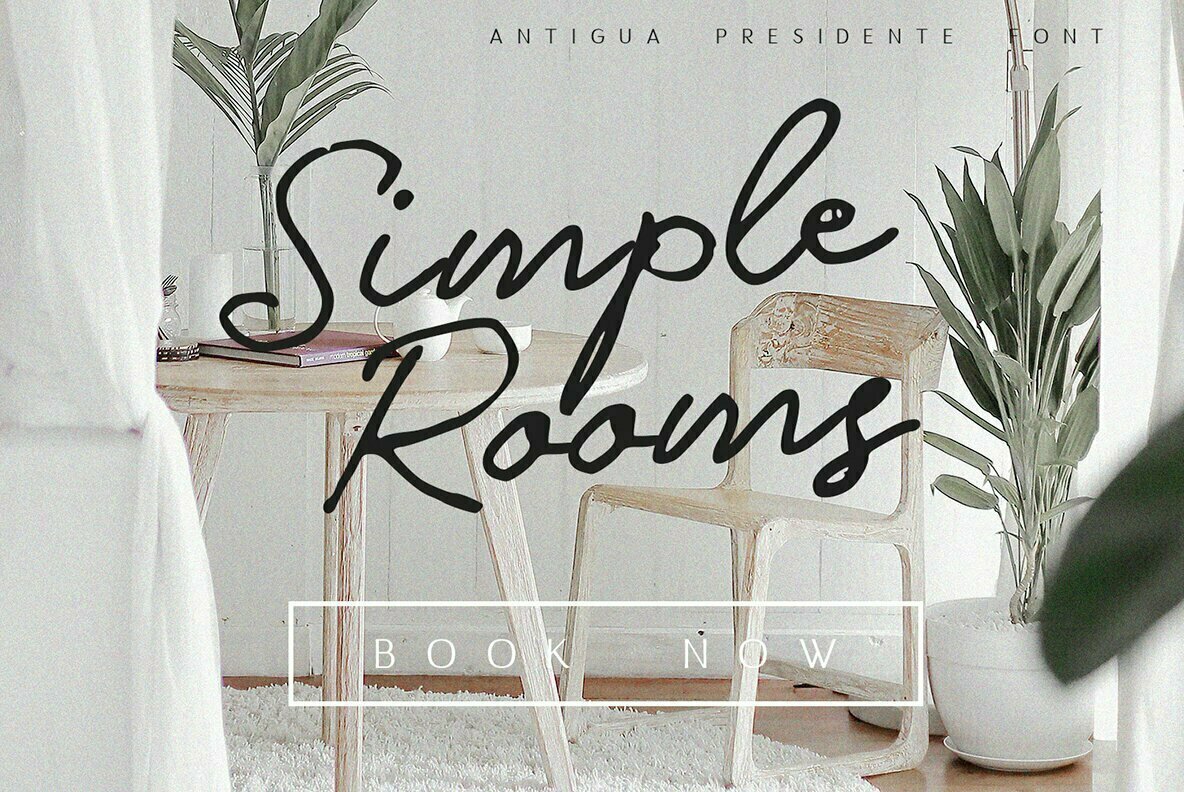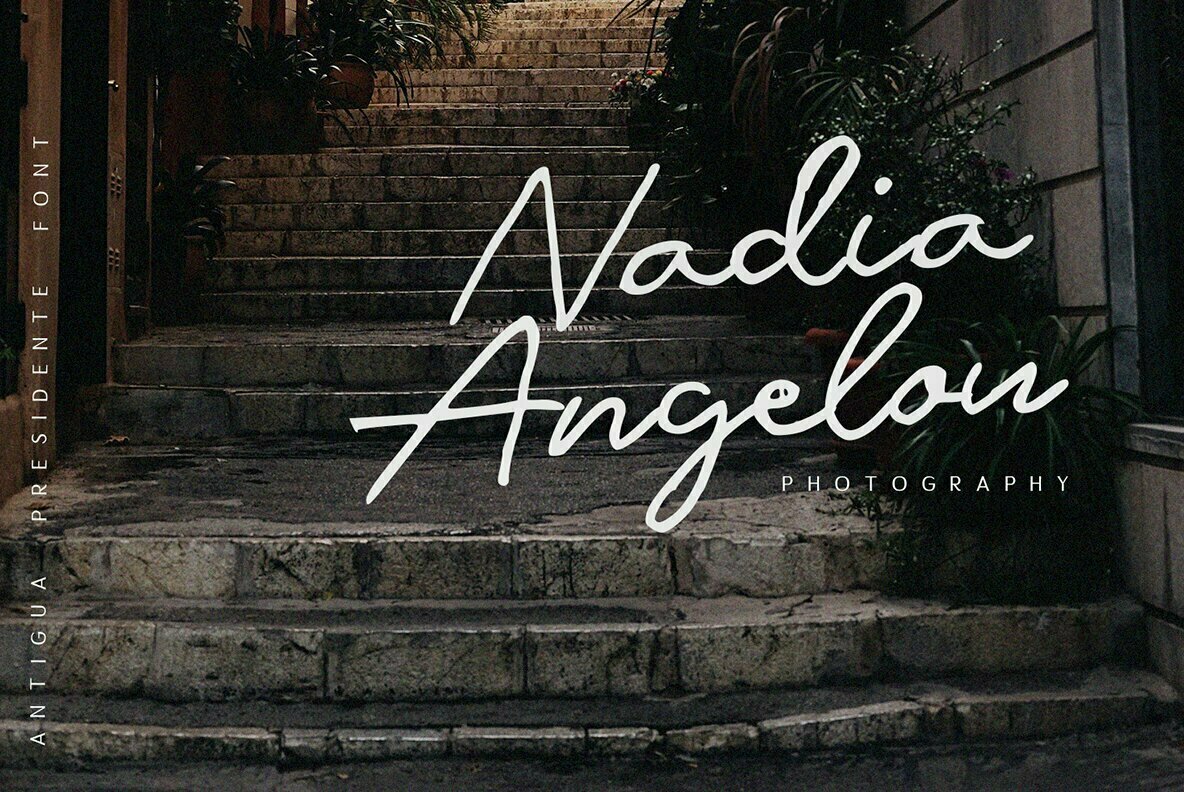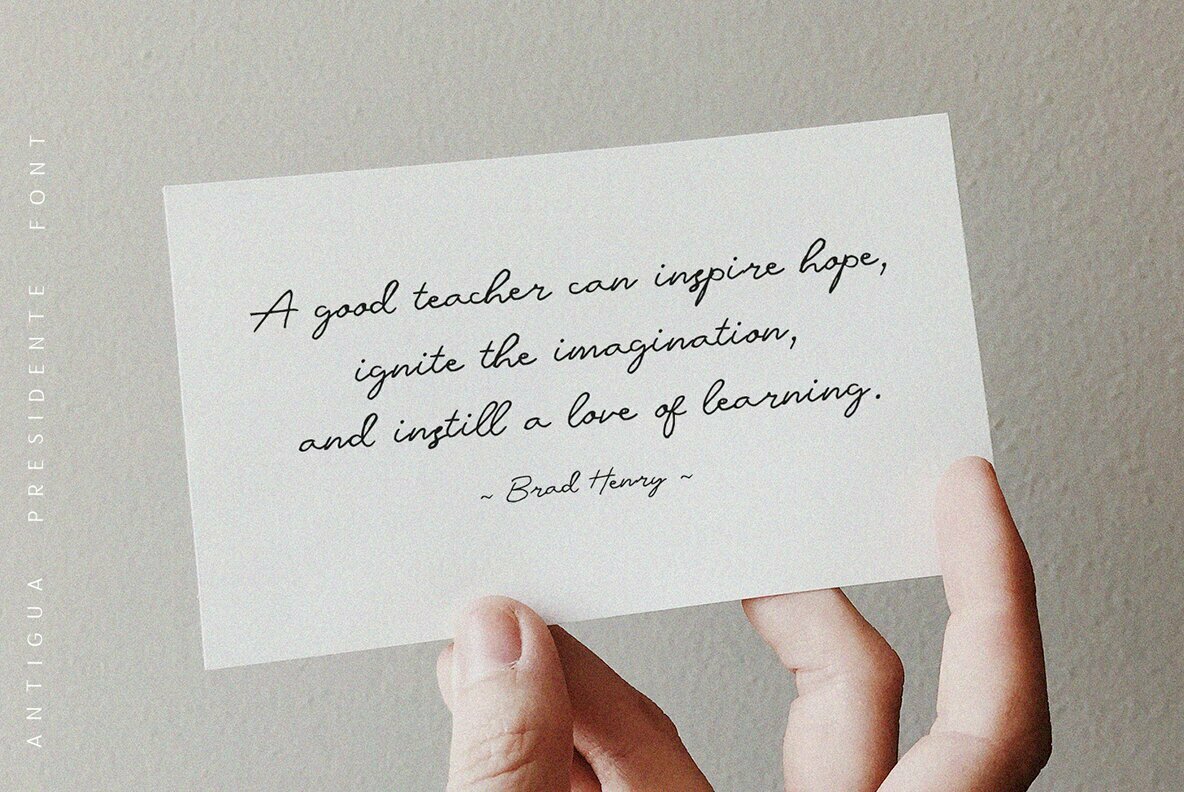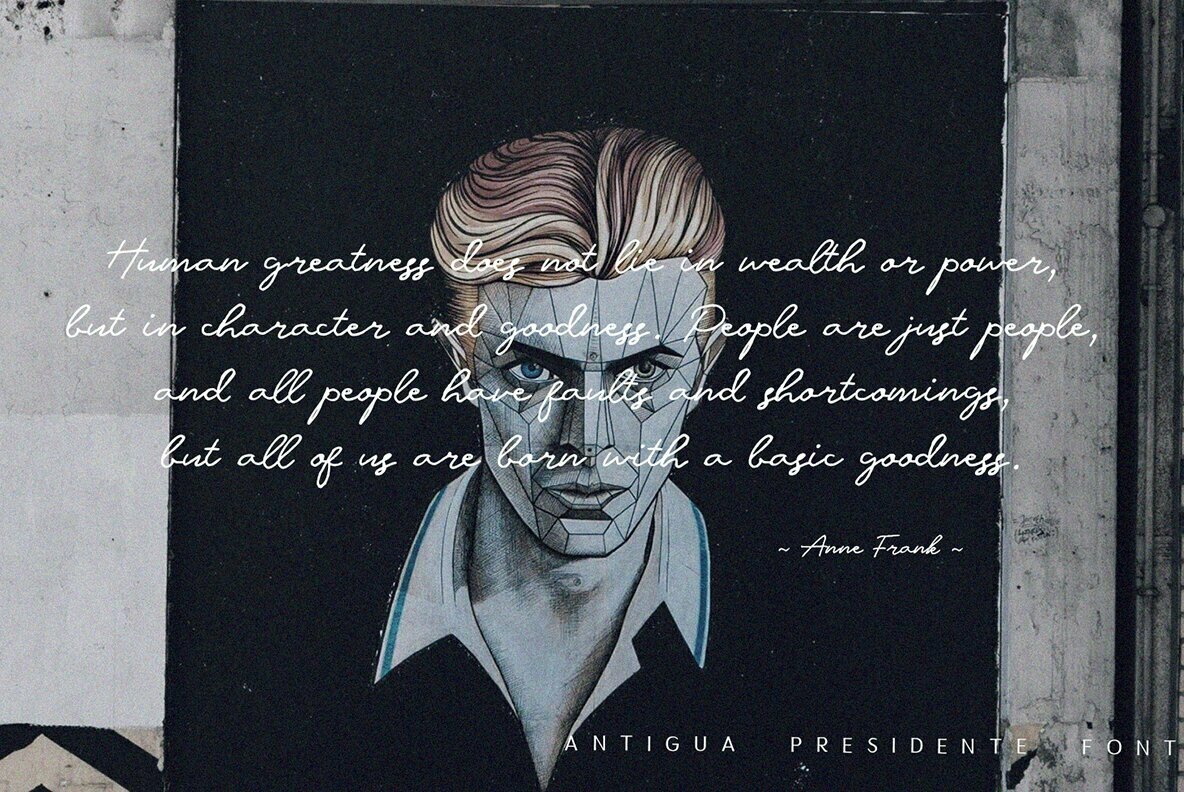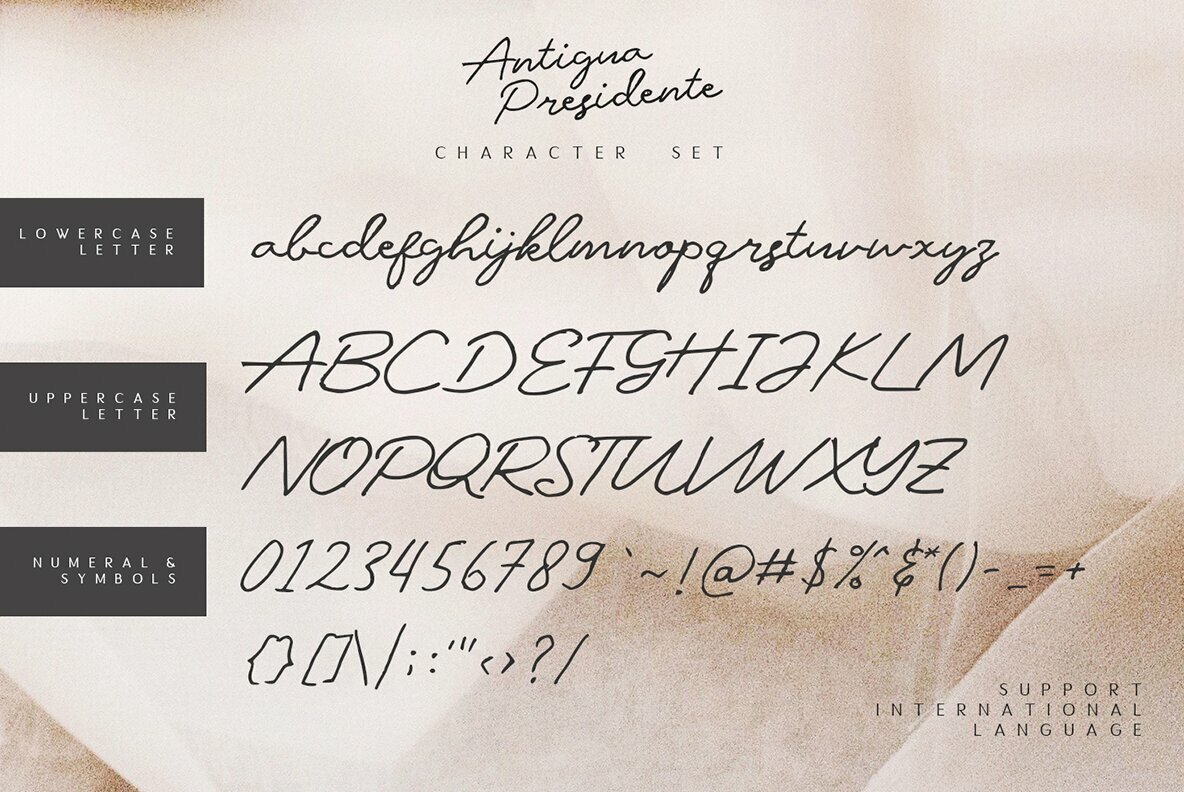
Antigua Presidente: A Distinctive Script with Handwritten Charm
Inspired by the fluidity of handwritten notes, Antigua Presidente is a script font that captures the essence of spontaneity and personality. With unique character strokes and a personal touch, this font lends an authentic vibe to any creative endeavor.
• Handwritten Aesthetic - Designed to replicate the natural flow of a pen on paper.
• Versatile Use - Ideal for logos, business cards, magazine layouts, and large-scale artwork.
• International Language Support - Easily adaptable for multilingual projects.